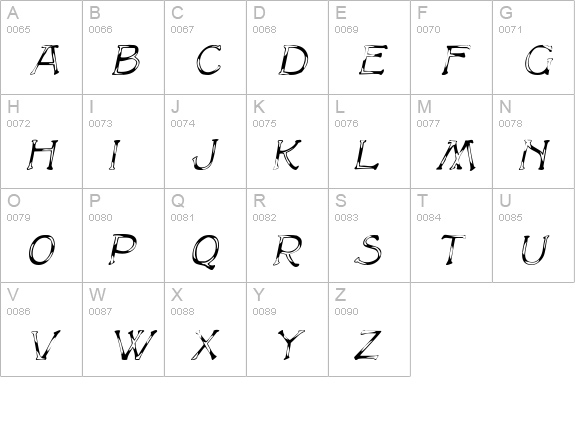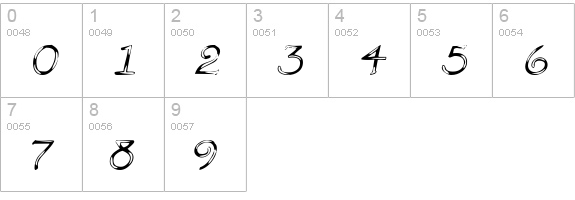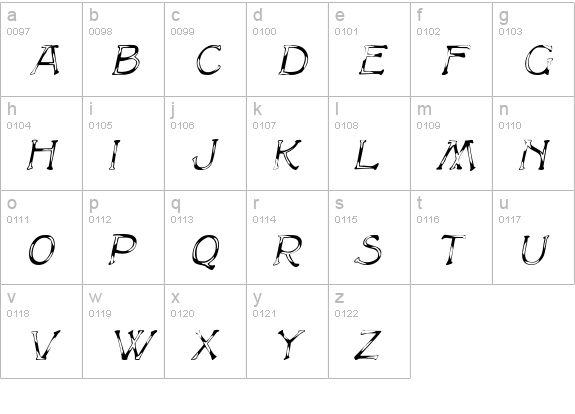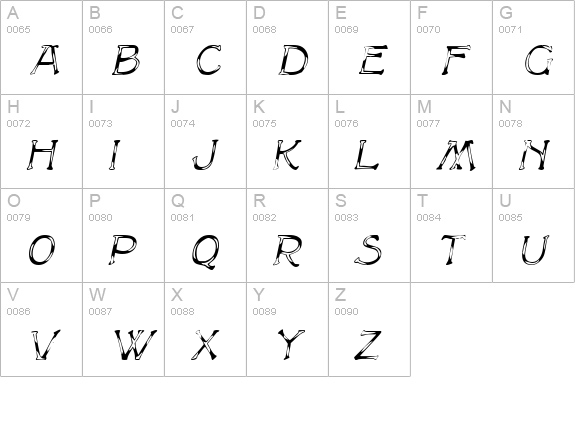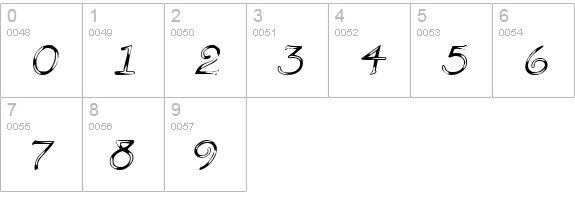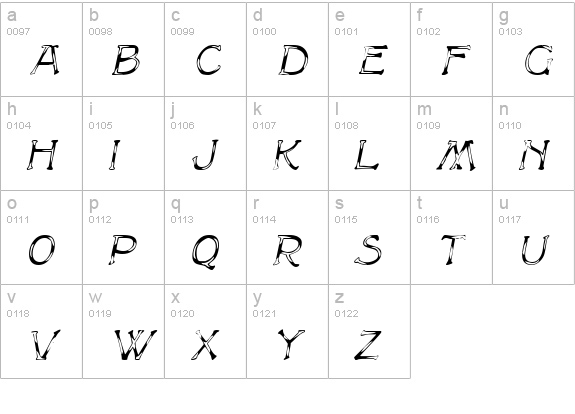
CammyCapsDisplay Italic Font Details
CammyCapsDisplay Italic is a distinctive, italic variant in the CammyCapsDisplay typeface family \xE2\x80\x94 well suited to design and typography projects.
Introducing CammyCapsDisplay Italic font, a striking and elegant typeface that exudes sophistication and style. Designed with attention to detail, this font features unique, flowing curves and a modern aesthetic that will make your designs stand out. CammyCapsDisplay Italic is the perfect choice for projects that require a touch of elegance and flair. Whether you are designing invitations, branding materials, or social media graphics, this font will add a touch of class to your work. Best of all, CammyCapsDisplay Italic is available for free download at FontsMarket.com. Simply visit the website to get your hands on this stunning font and elevate your designs to the next level. Don't miss out on the opportunity to enhance your projects with this beautiful typeface.